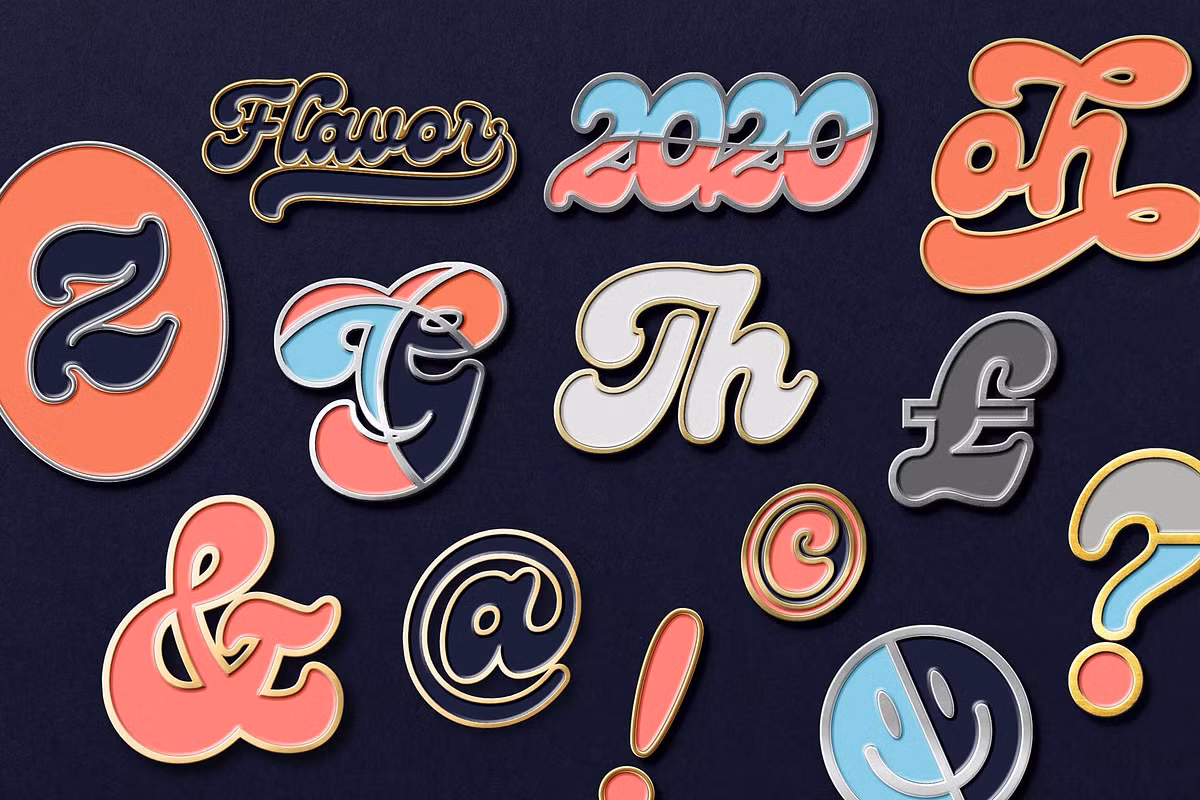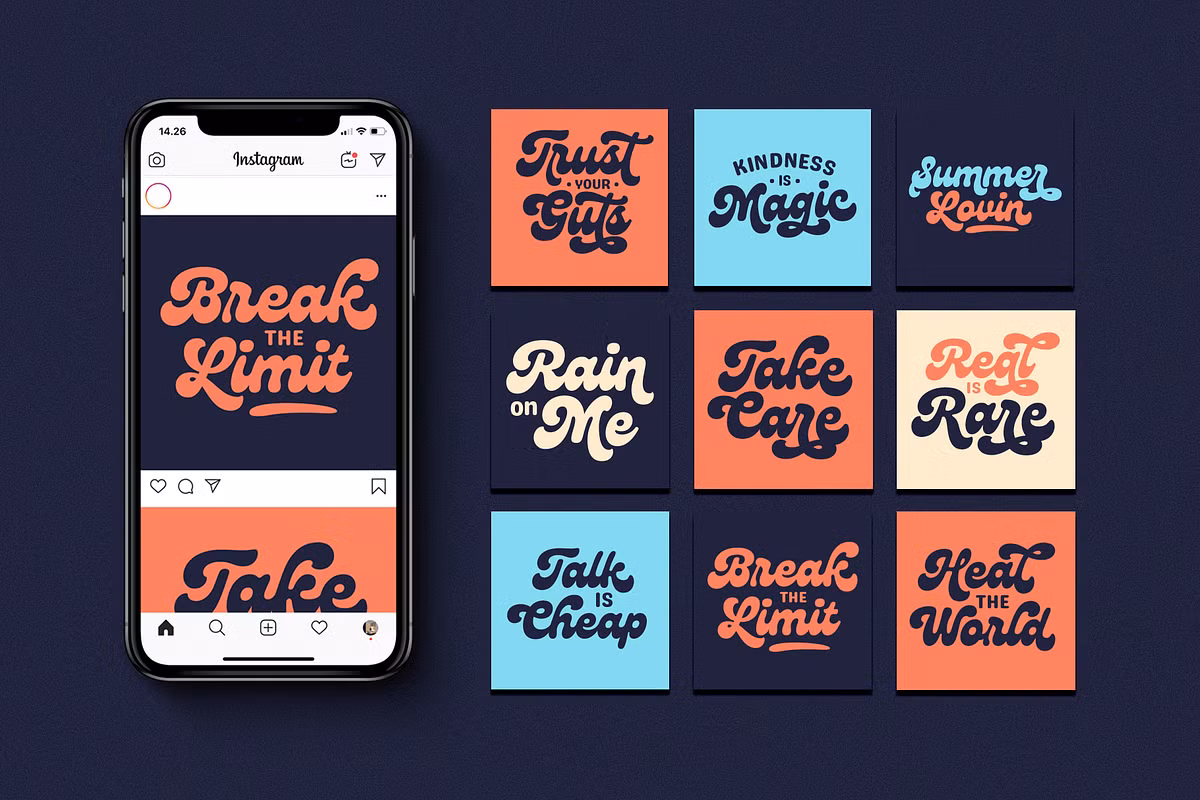
Genty: Versatile Bold Rounded Typeface with Fun Swashes and Styles
Meet Genty, a fun and bold font that combines the best of script fonts with a fresh twist. It’s a carefully designed font that’s full of personality, with its bold lines, rounded corners, and fancy swashes giving it a playful feel. Genty is what happens when you bring together two other fonts, Budge and Glaw, and create something entirely new and exciting. The result is a modern, lively, and trendy font that’s perfect for all sorts of projects. Whether you’re looking to add some personality to a design or just want a font that stands out, Genty is a great choice. Its unique blend of styles makes it perfect for everything from headings and titles to body text and more. With its bold and whimsical design, Genty is sure to bring a smile to people’s faces and make your design stand out from the crowd.
Design Style of Genty
Genty’s design style is really versatile and catches your eye. It has a bold and rounded look that’s easy to like, making you feel welcome. The curvy lines and swashes add a playful touch, making it perfect for projects that want to be fun and charming. This style is great for creating a happy and lively vibe. It’s simple, yet it stands out, and that’s what makes it so engaging. Whether you’re looking to add some excitement or just a bit of personality, Genty’s design style is a great choice. It’s friendly, approachable, and sure to put a smile on people’s faces.
Genty’s fun and playful side really comes out with all the extra features it has. It’s got some really nice swashes, and the letters can change depending on where they are in a word, which is pretty cool. There are also different styles you can choose from, with up to 15 different options for some letters. This means designers can make their writing look just right for what they’re working on, whether it’s a brand, an ad, or a social media post. They can pick the style that fits the mood they want to create, which is really useful.
Unique Features
Genty has some really cool extra touches, like super tall and super long swashes that go above and below the letters, and even special swashes just for the uppercase letters, which makes each letter look one-of-a-kind.
Swooshes: The swoosh elements that appear under the letters and at the ends of words enhance the overall dynamics of the typeface.
Ligatures: Genty features ligatures that ensure a seamless flow between letters, creating a more cohesive look.
Character Sets and Language Support
Genty is made to work with many different languages, so it can be used by people all around the world. This means you can create designs that look great and can be understood by lots of people, no matter where they’re from. Every little part of Genty, like the shapes of the letters, has been carefully chosen to keep its special look while still being useful in many different situations.
For a detailed overview of the available characters and the full extent of language support, designers can refer to the Genty Specimen, which provides a comprehensive guide to the typeface’s capabilities.
Use Cases for Genty
Genty is really versatile, which makes it perfect for all sorts of design projects. Let’s take a look at some of the most interesting ways it can be used.
- Branding: Genty’s fun and modern aesthetic makes it an excellent choice for brand identities that wish to convey a friendly and approachable image.
- Headers: Use Genty for captivating headers in websites, presentations, or print materials to grab attention.
- The fun and creative style of Genty makes it a great choice for making custom logos that really catch your eye.
- Genty can make pictures and stories in posters and magazines look better, which helps get the message across, no matter if it’s for advertising or telling a story.
- Food Menus: The charming characteristics of Genty can make food menus more inviting and enjoyable to read.
When you pair Genty with another font, a simple sans serif one works really well. The clean lines of the sans serif font balance out Genty’s fun curves, making it easy to read and look great too.
Here are some pairing recommendations:
- Genty and GentySans: GentySans is a sans serif font that matches Genty’s fun style, so they’re great for any design project. They complement each other nicely, making them a perfect pair.
- Genty + Open Sans: This pairing balances the whimsical style of Genty with the modern and clean look of Open Sans, ideal for website headers and body text.
- Genty + Montserrat: The geometric shapes of Montserrat provide a solid contrast to Genty, making it suitable for branding and promotional materials.
Genty is a typeface that’s really versatile and fun to use. It’s got a bold design with lots of personality, and it comes with a ton of features that make it perfect for all sorts of projects. Whether you’re working on a brand, posting on social media, or making print materials, Genty has everything you need to make your designs pop. The best part is, it’s not just about looking good – it’s also really functional. So, if you want to add some excitement to your work and make it stand out, Genty is a great choice. It’s all about having fun with typography and letting your creativity shine through. With Genty, you can create designs that are truly eye-catching and effective, and that’s what makes it so special.